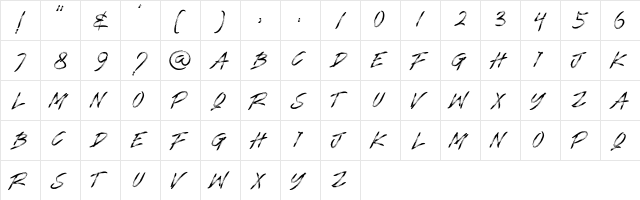
ERNESTO Regular Font Preview
ERNESTO Regular
ERNESTO Regular Font Details
Design Context for ERNESTO Typeface
ERNESTO is a composed and adaptable typeface that performs quietly and consistently across a wide range of design contexts.